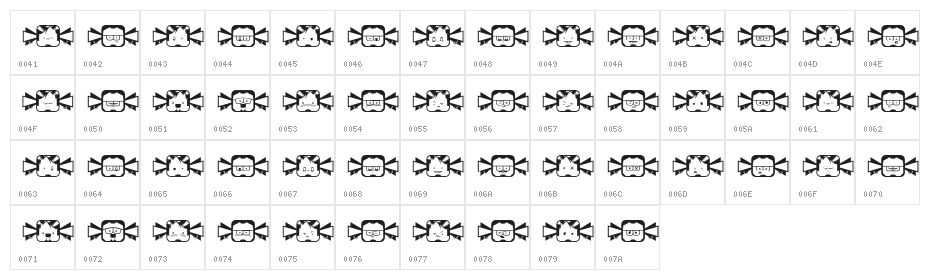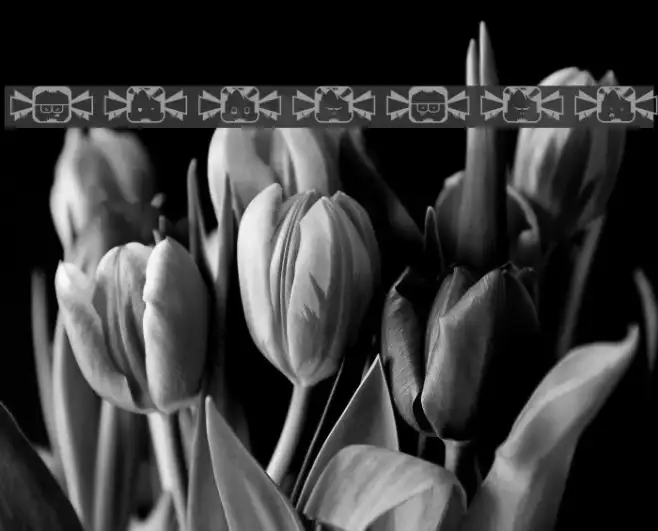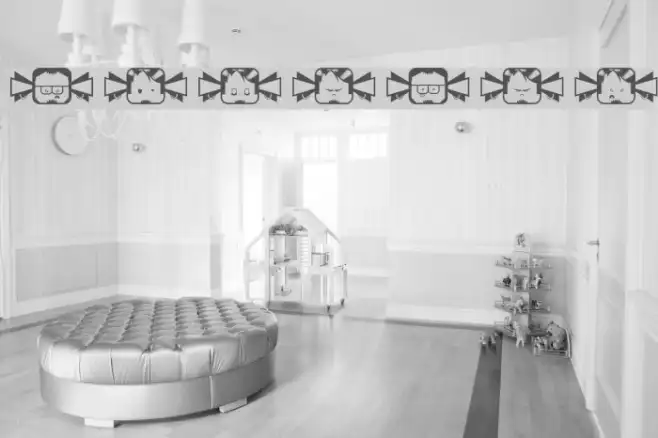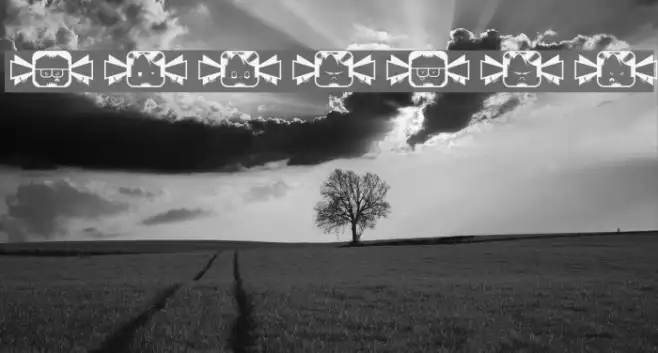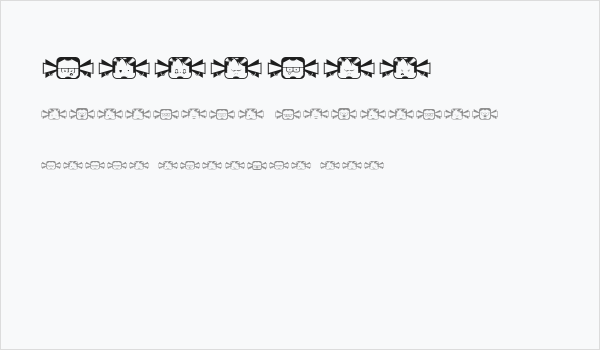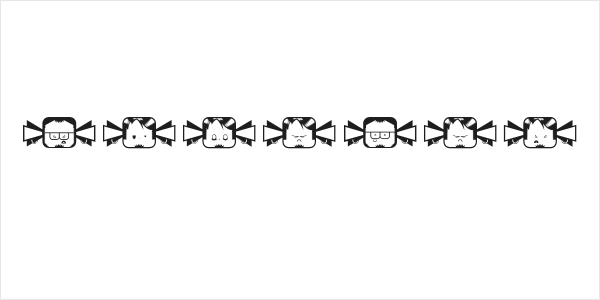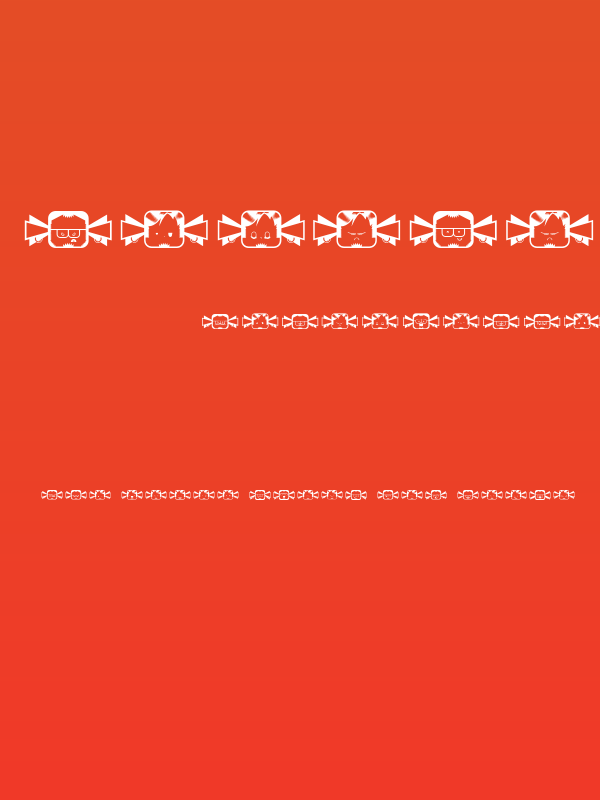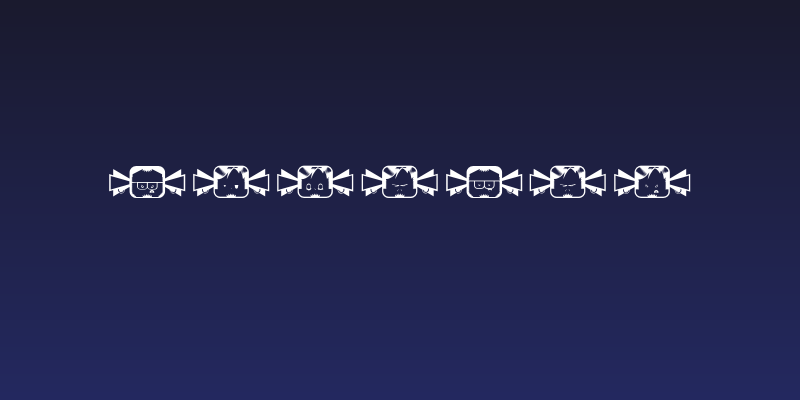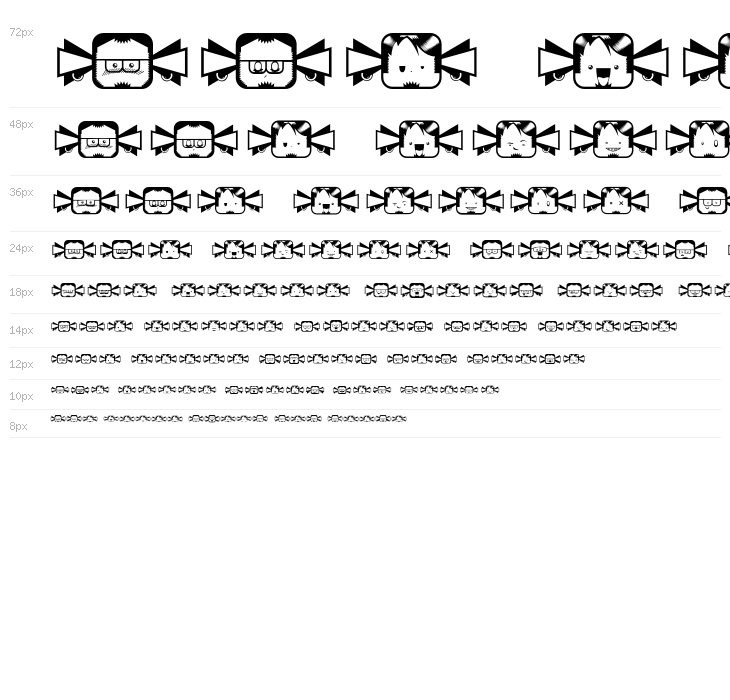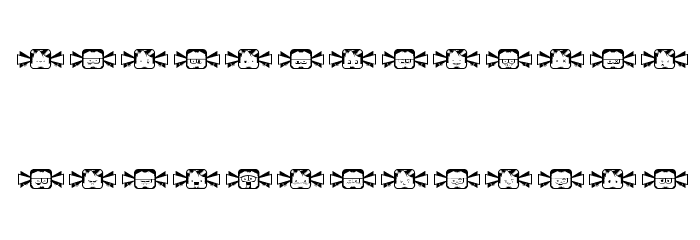
Negobom Font
Negobom Description
This is not a valid font. The image consists of repeated candy-like shapes with faces, arranged in rows. Each character appears to be a playful illustration rather than a typographic font. The design is whimsical and decorative, featuring cartoonish expressions within the candy shapes. This style is more suited for decorative purposes rather than functional typography.
| Use Case | Decorative elements, Themed graphics |
| Proposed Projects | This design could be used for children's party invitations, playful posters, or themed event decorations. |